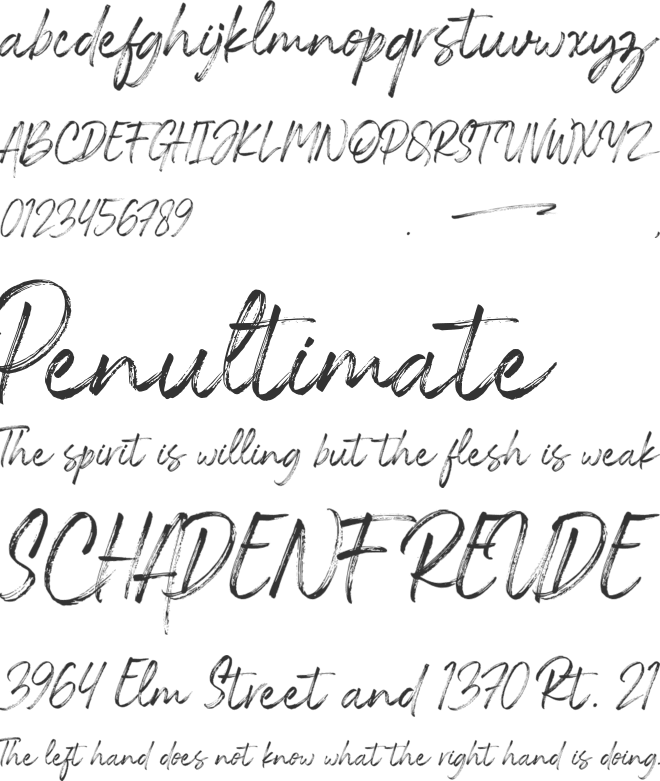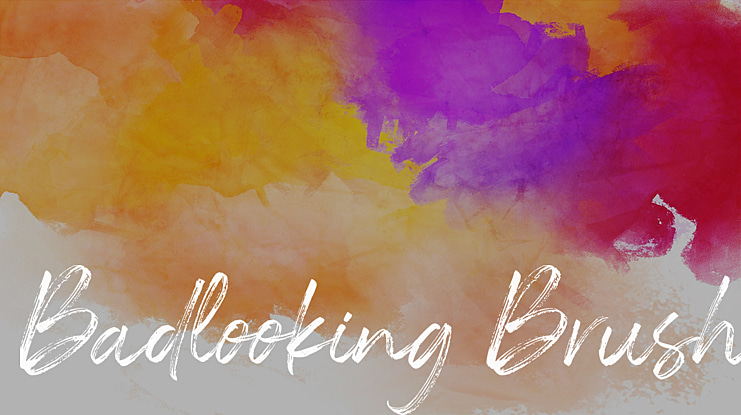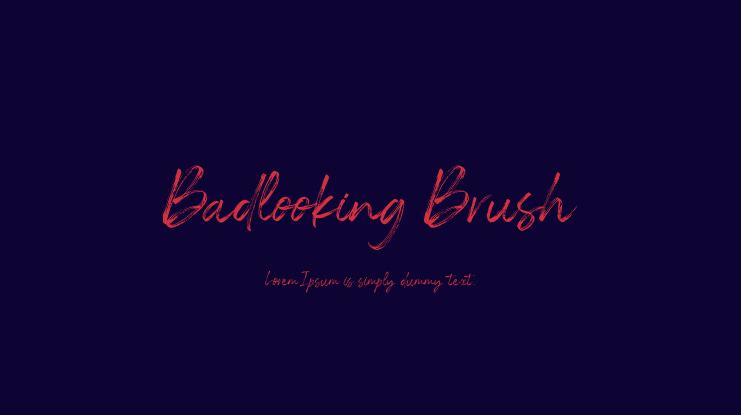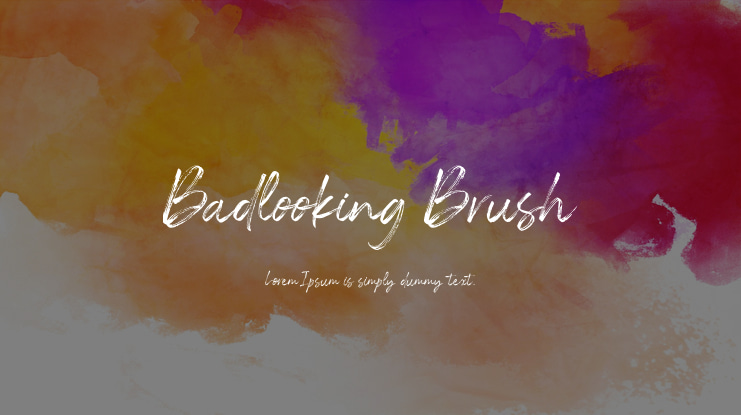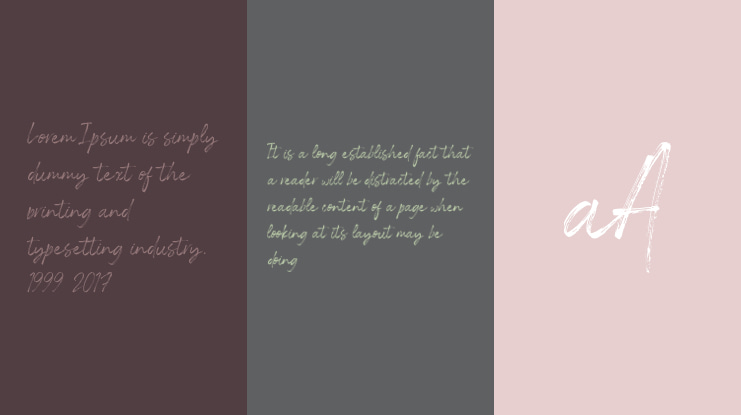
Badlooking Brush Font
A Font by Aluyeah Studio
Badlooking Brush, the ugly duckling modern script font. Coming with 52 alternates, 9 stunning swash and super easy to use alternates.